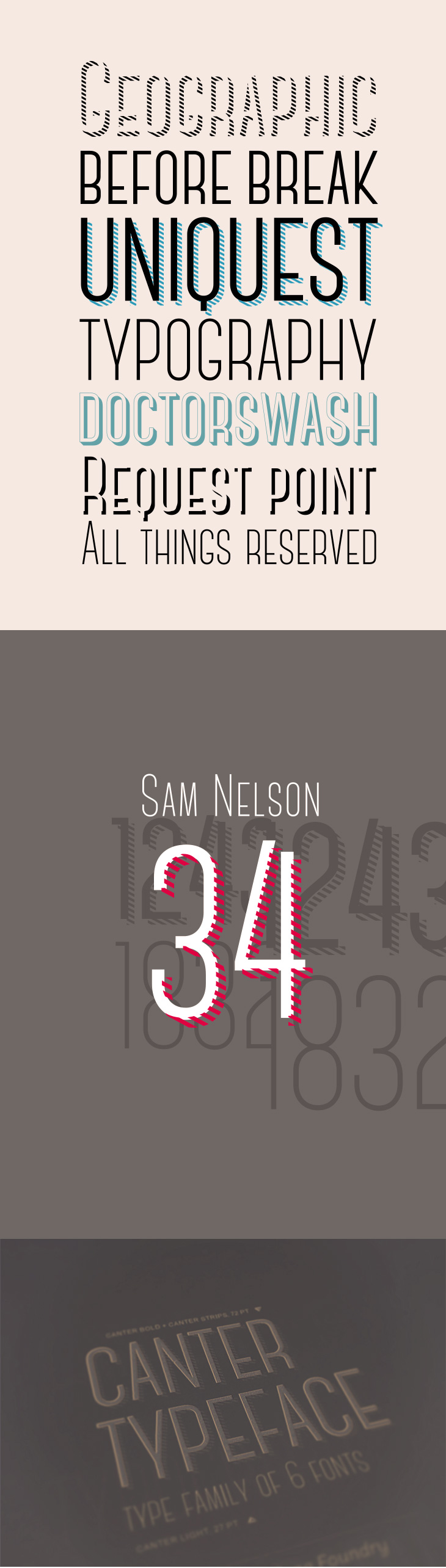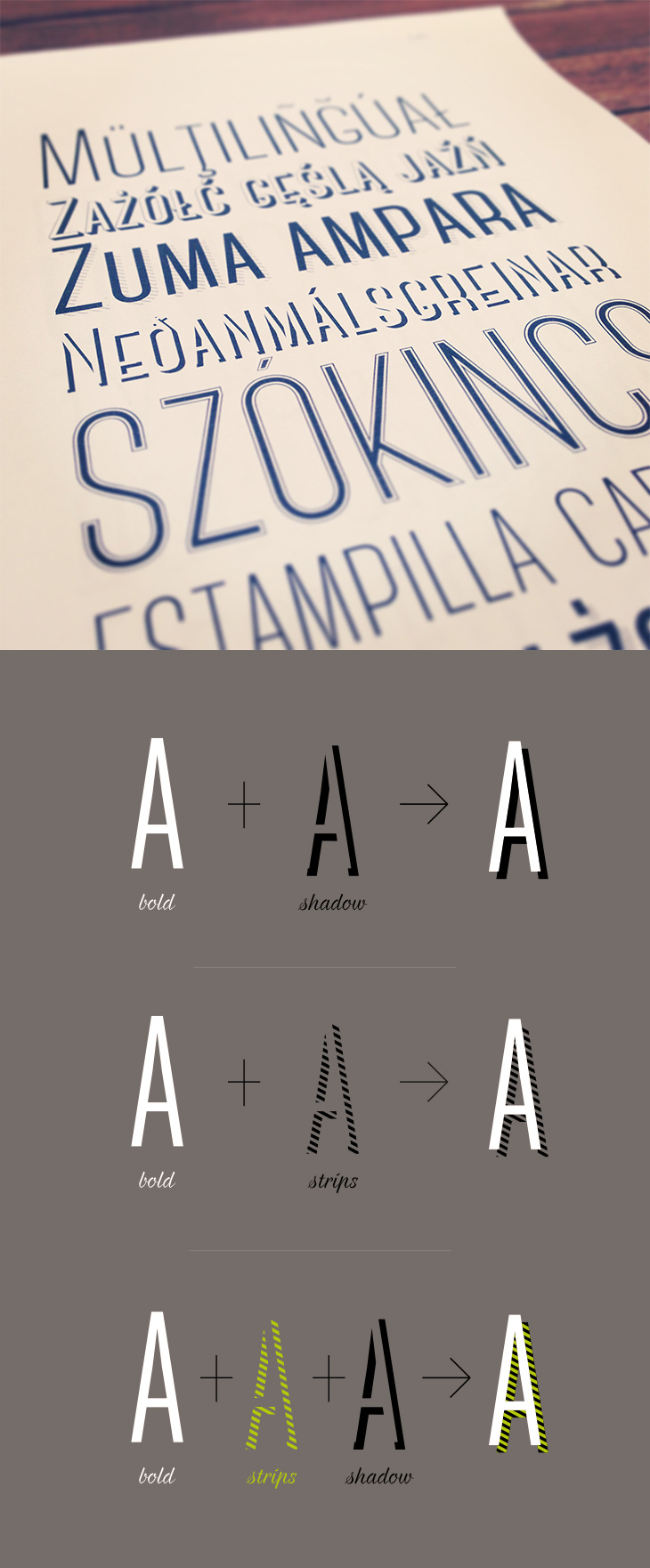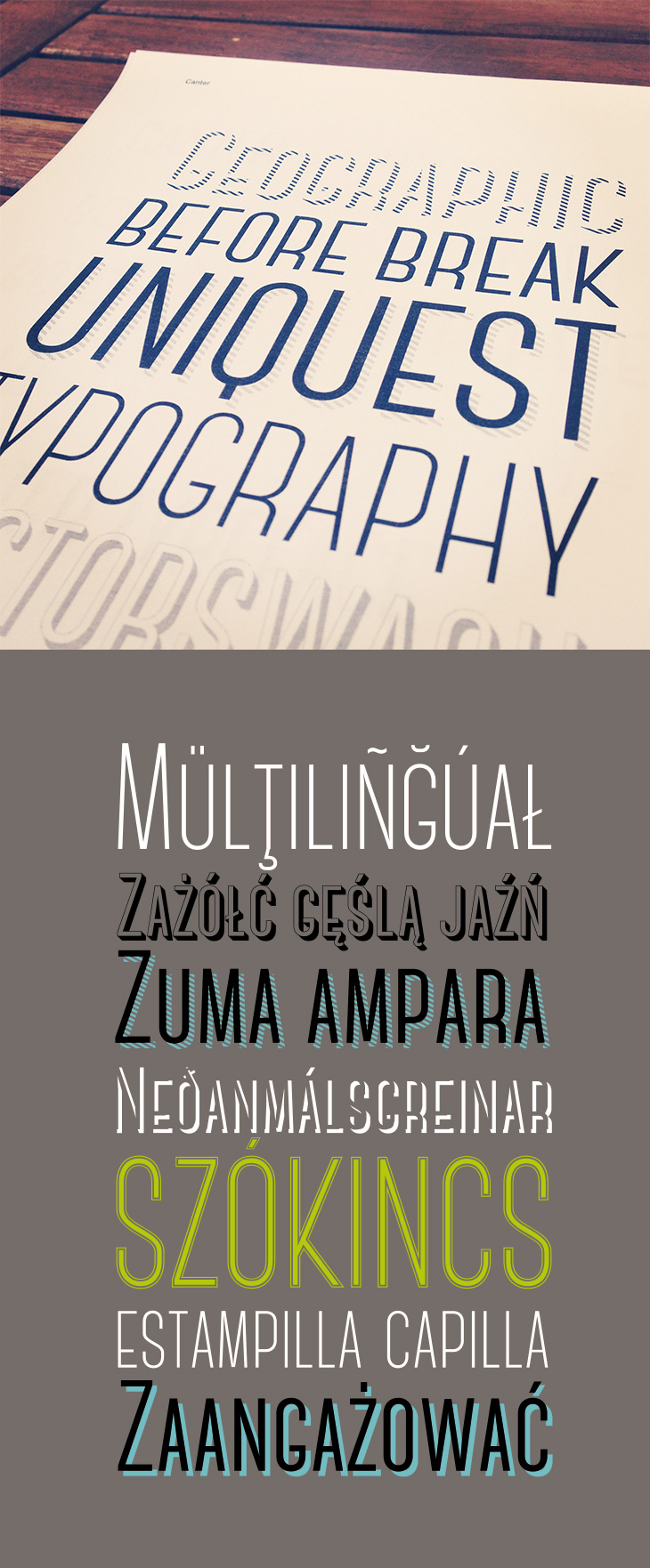
Designed by Christopher J. Read the family typographical comes with 6 different weights Canter. It is a contemporary typeface, caps and bodies made with condensed that work especially for signage.